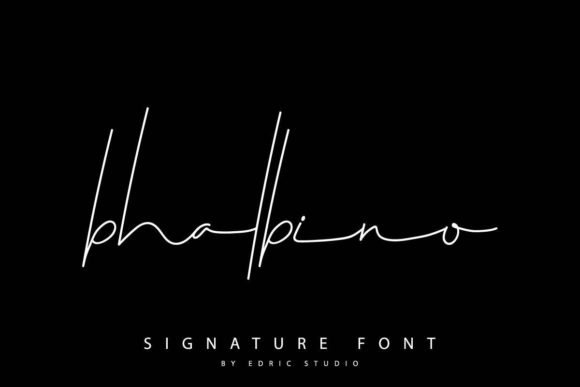
The Elegance of Bhalbino Font: A Designer’s New Best Friend
I still remember the last time I was working on a wedding invitation project, and I just couldn’t seem to find the right font. My client wanted something elegant, modern, and eye-catching, but everything I tried seemed to fall flat. That was until I stumbled upon Bhalbino Font. This stunning script font has been a game-changer for me, and I’m excited to share its beauty with you.
An Honest Review of Bhalbino Font
- ✨ Modern feel: Bhalbino Font has a sleek, contemporary look that’s perfect for designs that need a touch of sophistication.
- ✅ Elegant script: The flowing curves and lines of this font make it ideal for wedding invitations, stationery, and other formal designs.
- 💫 Versatility: Bhalbino Font can be used for a wide range of projects, from social media posts to greeting cards.
While Bhalbino Font is an amazing addition to any design project, there are a few things to keep in mind:
- ⚠️ Legibility at small sizes: Like many script fonts, Bhalbino can be a bit tricky to read at very small sizes. Make sure to test it out before finalizing your design.
- 🤔 Overuse of swashes: While the swashes and stylistic alternates in Bhalbino are gorgeous, it’s easy to overdo it. Use them sparingly to add visual interest to your design.
The Backstory of Bhalbino Font
Bhalbino Font was designed with the goal of creating a modern, elegant script font that’s perfect for a wide range of design projects. The designer wanted to create a font that’s both sophisticated and approachable, with a unique feel that’s hard to find in other fonts.
| Font Name | Bhalbino Font |
| Author | EdricStudio |
Q: What type of projects is Bhalbino Font best suited for?
A: Bhalbino Font is perfect for wedding invitations, stationery, social media posts, greeting cards, and any other design project that needs a touch of elegance and sophistication.
Q: Is Bhalbino Font easy to read?
A: Bhalbino Font is generally easy to read, but like many script fonts, it can be a bit tricky at very small sizes. Make sure to test it out before finalizing your design.